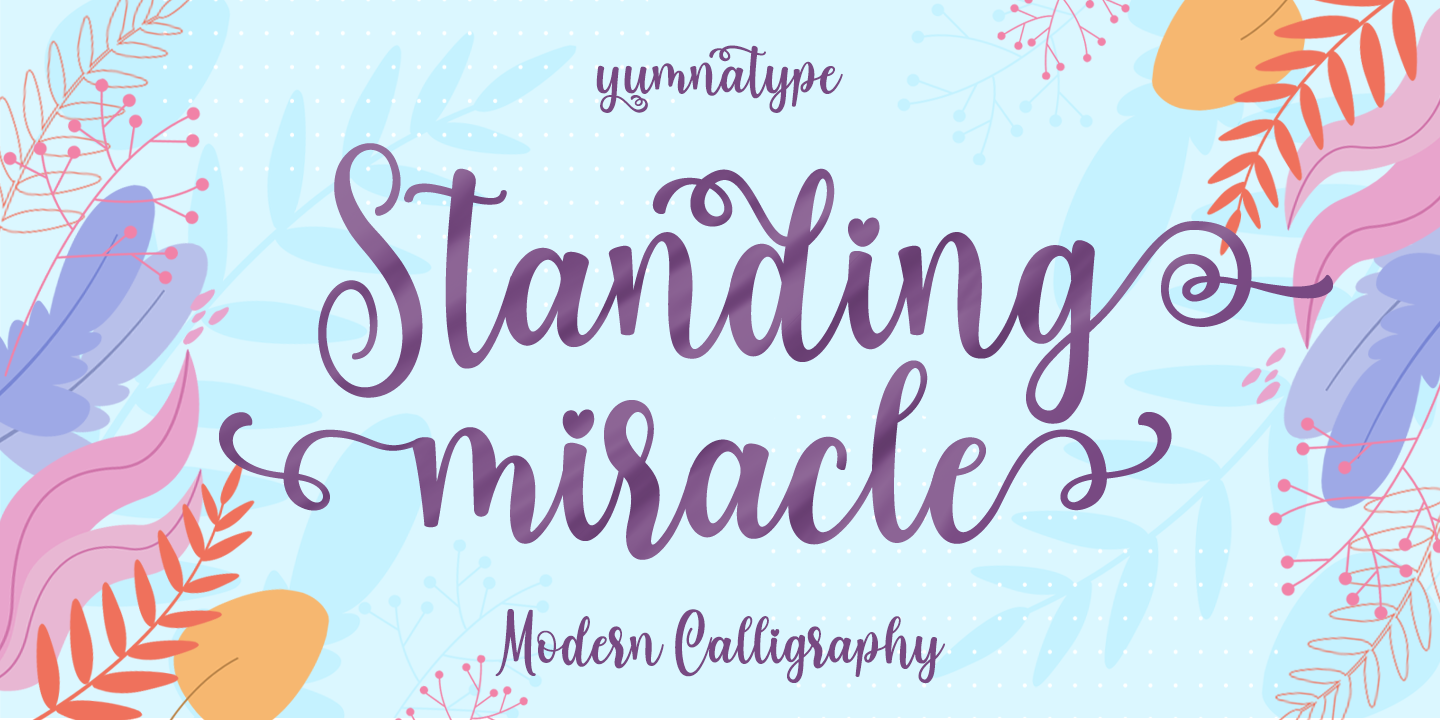
The Standing Miracle Font is an excellent choice for designs that aim for a whimsical, charming, and distinctly handcrafted aesthetic, often evoking a sense of wonder and delight. Imagine it gracefully adorning the cover of a magical storybook, adding a touch of enchanting charm to personalized invitations, or bringing a dreamy, ethereal feel to whimsical product packaging. It's also perfectly suited for creative social media graphics, charming greeting cards, unique blog headers, and any project where you want to convey a sense of innocence, joy, and a unique, artistic flair. Its often flowing lines, gentle curves, and unique character make it ideal for conveying sincerity and a cheerful spirit.
What makes the Standing Miracle Font so exciting is its ability to instantly infuse a design with a feeling of warmth and delightful authenticity. It frequently features soft edges and a subtly organic or hand-drawn quality that makes it feel both unique and incredibly approachable, much like a heartfelt inscription. This font has a comforting and distinctive personality that can instantly elevate your design, making it feel both quaint and expressively artistic. It’s designed to capture attention with its unassuming beauty, ensuring your message is not just seen, but felt with a sense of delightful authenticity.
The Standing Miracle Font family typically might be offered in a single, impactful weight to maximize its unique hand-drawn effect, though some variations might include stylistic alternates or unique ligatures that enhance its whimsical appeal. Its primary focus is usually on its distinctive visual impact rather than extensive weight ranges. These variations empower designers to create a truly inviting and memorable display, ensuring the Standing Miracle Font Free Download can adapt to a wide array of projects while maintaining its signature, miraculous charm.